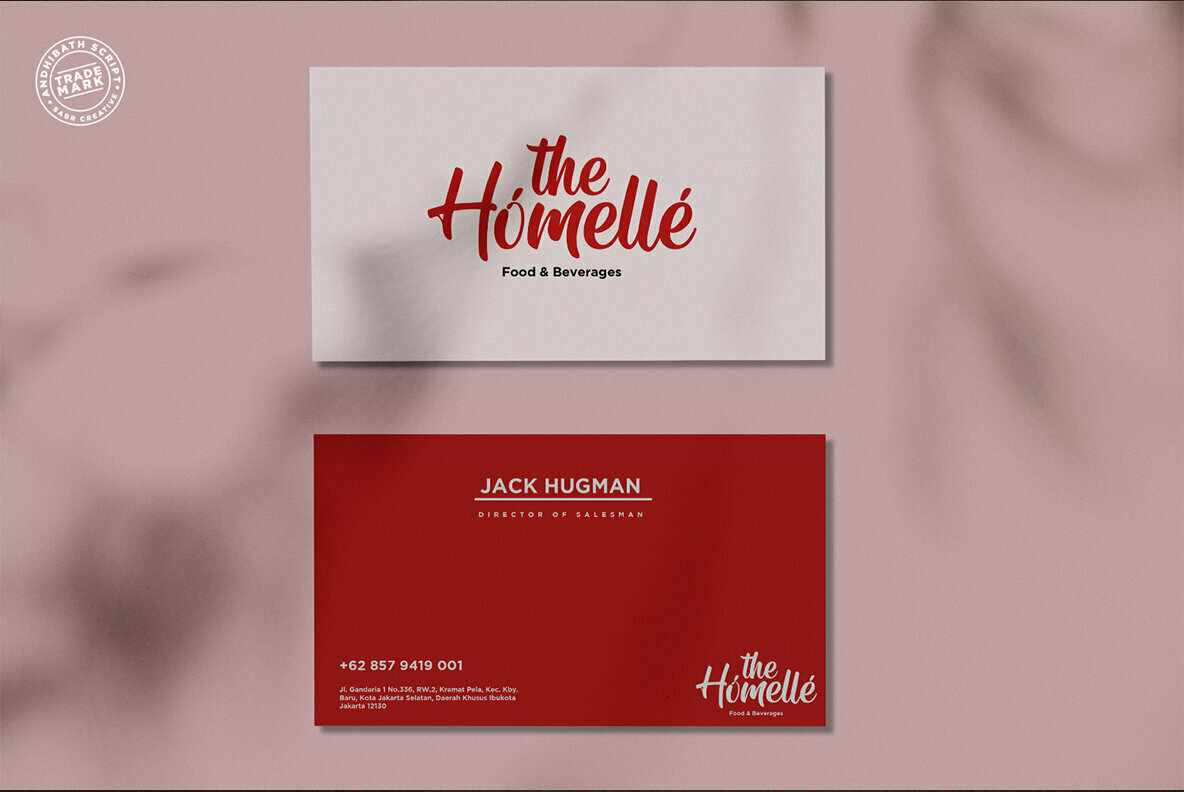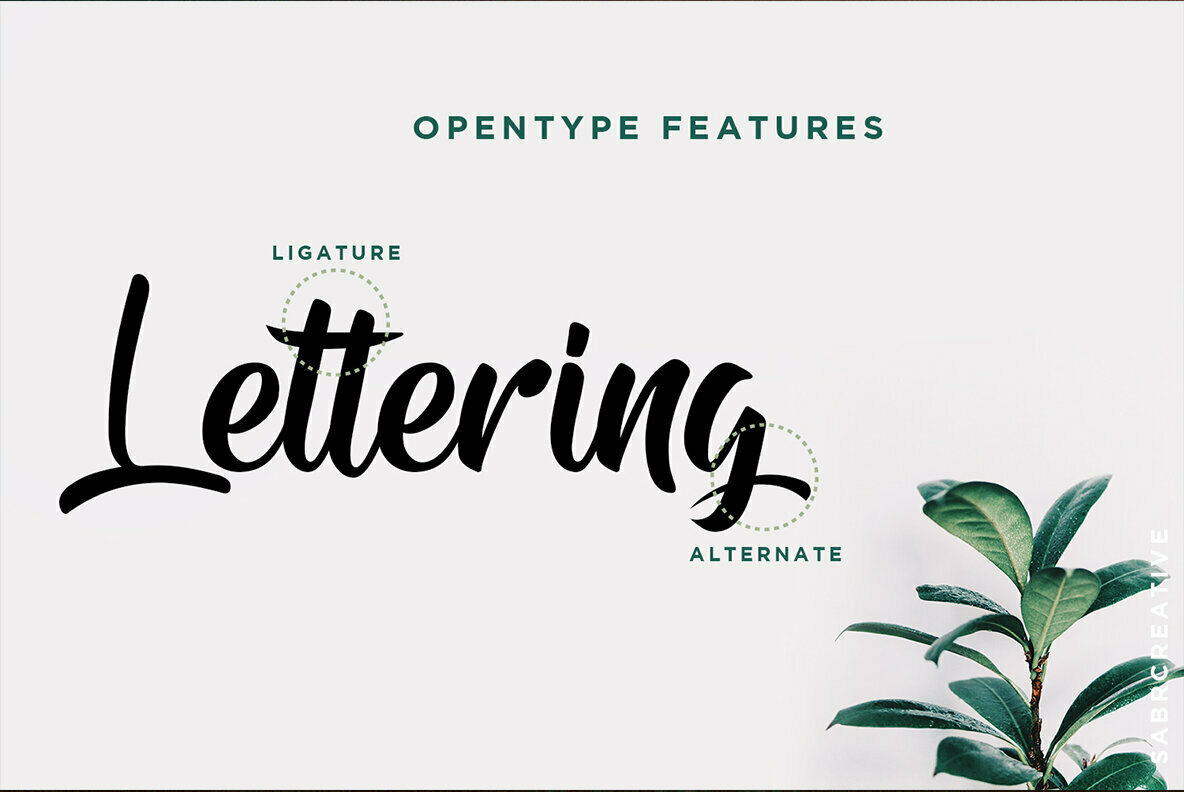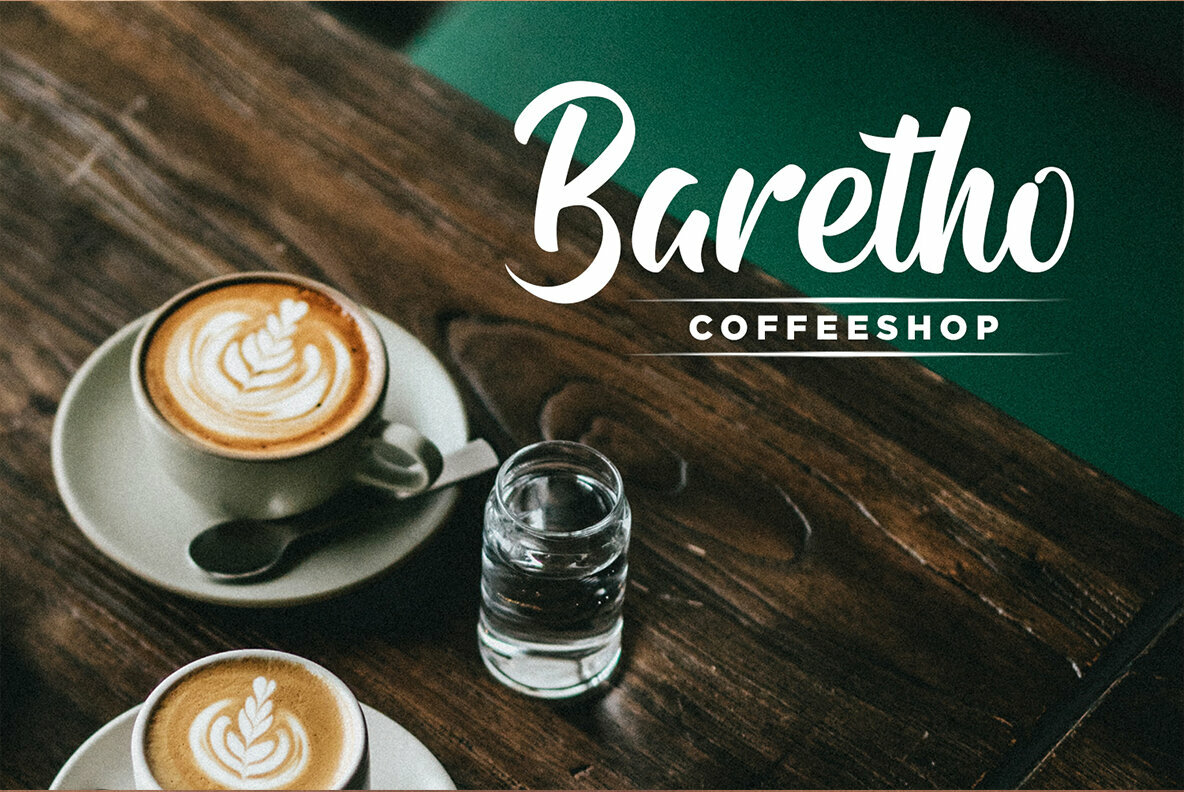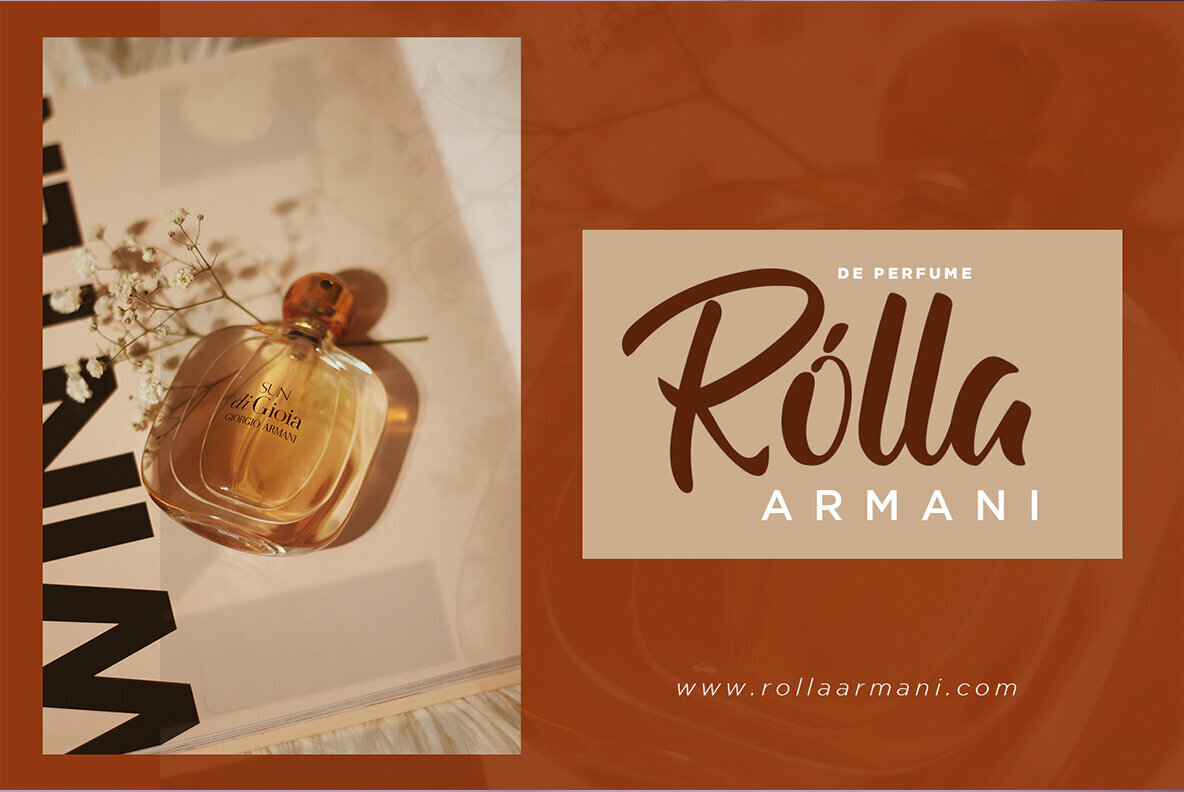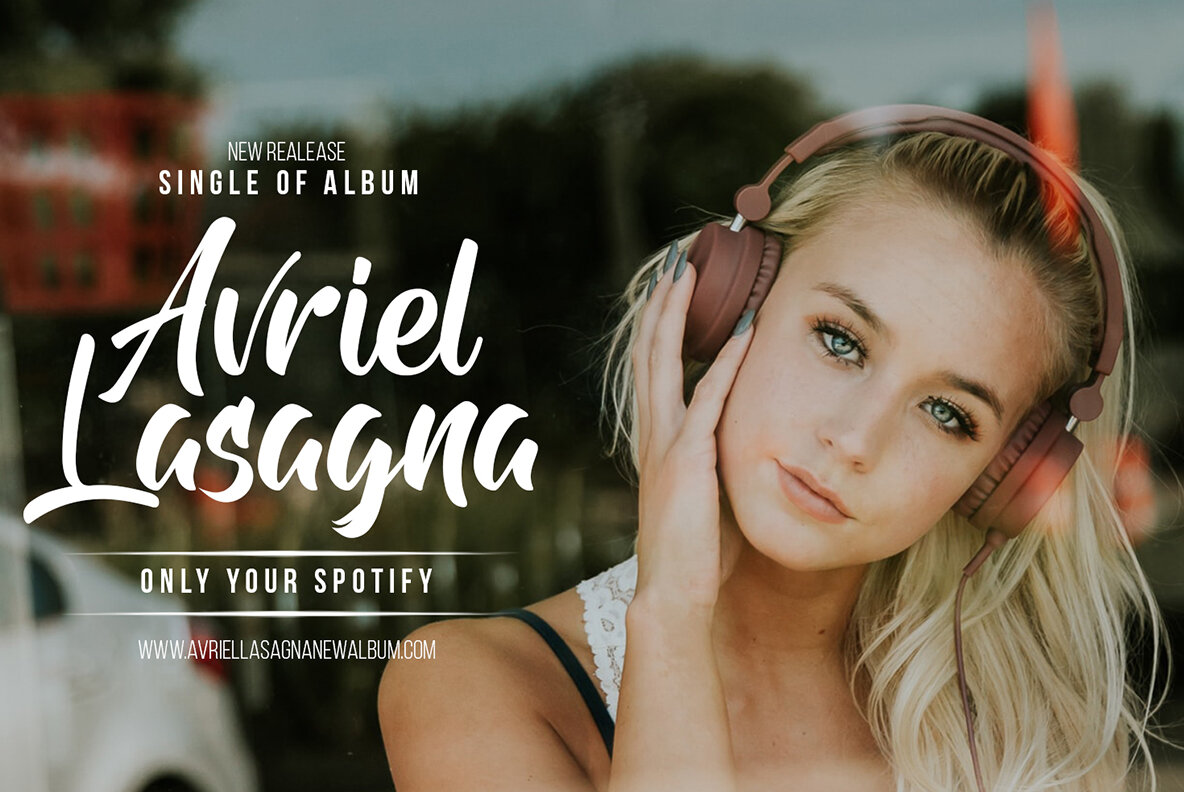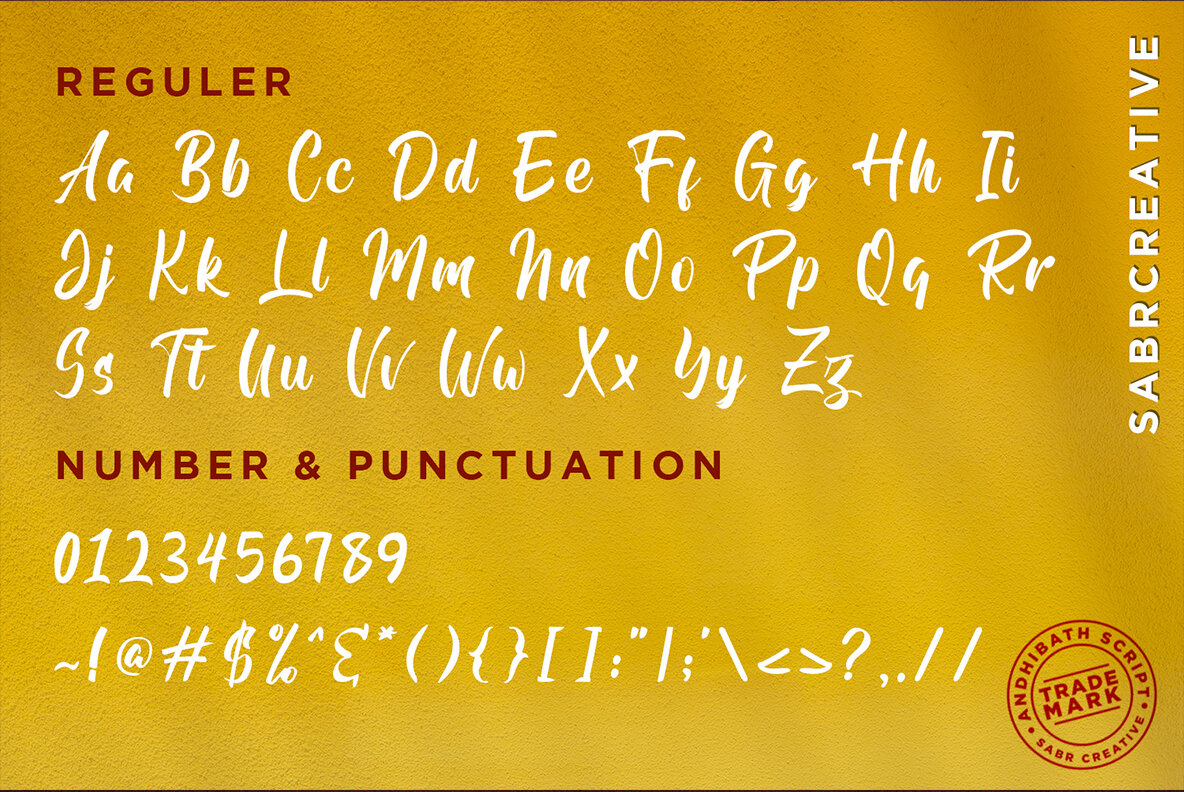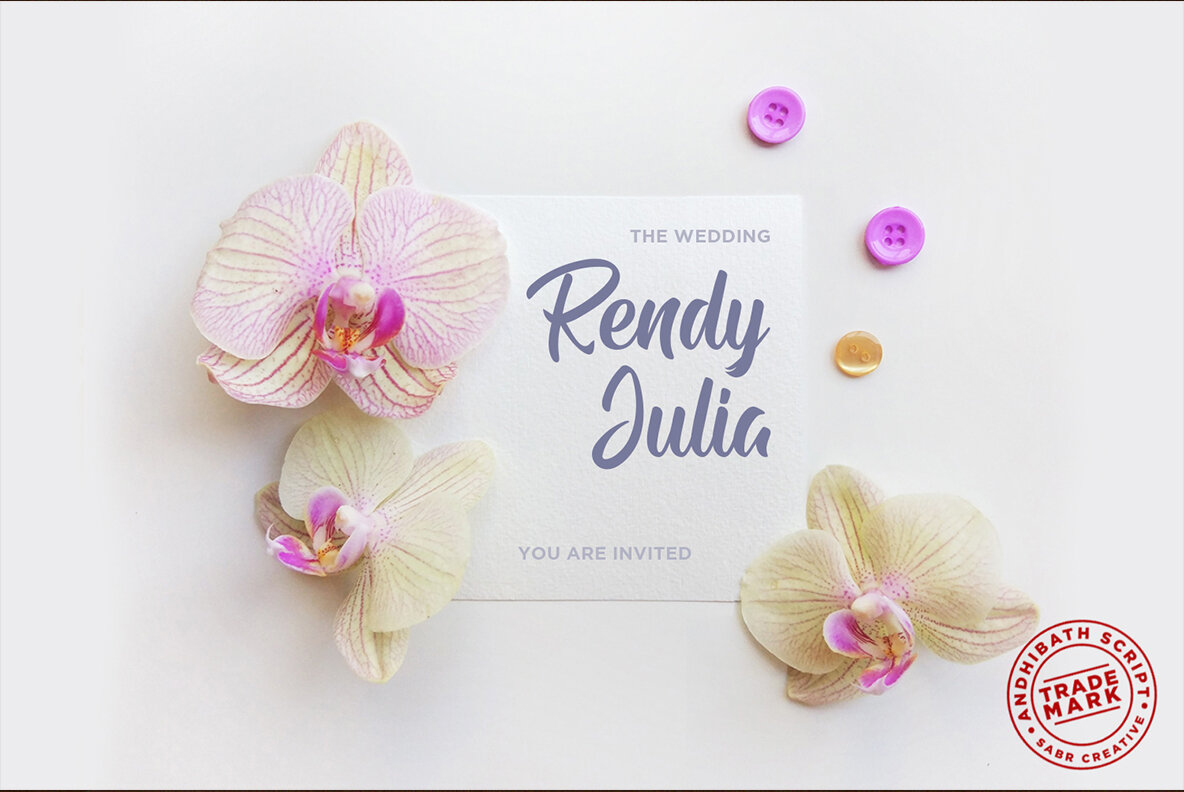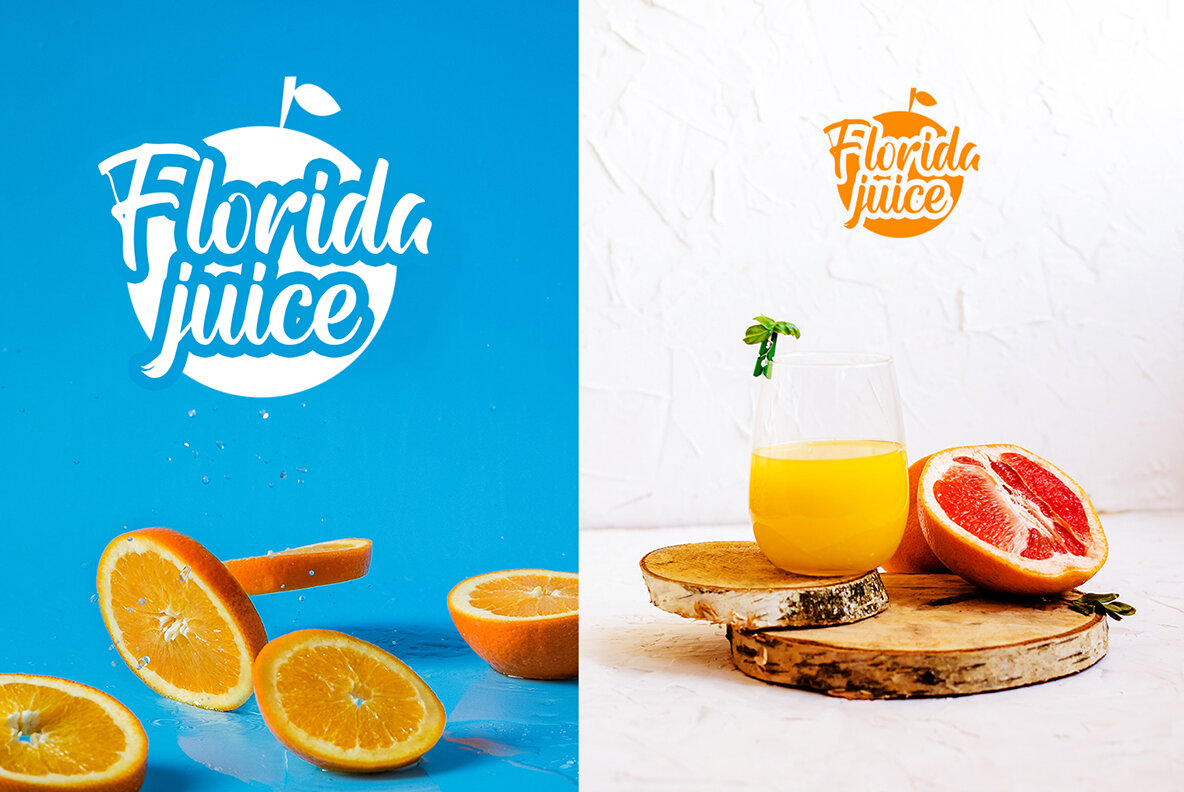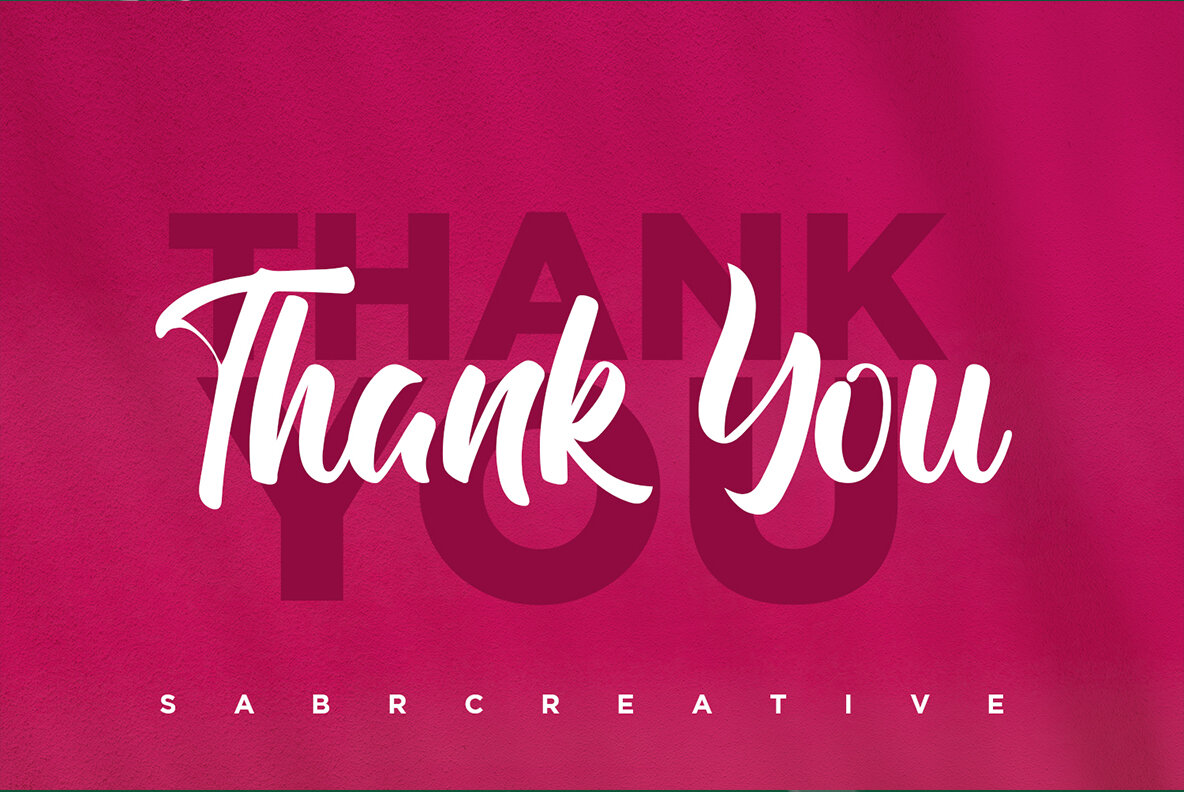
Andhibath Font
Andhibath
The Andhibath font by Sabrtype Studio embodies a harmonious blend of natural flow and strong character, crafted with meticulous calligraphic techniques. Designed to adapt to diverse project needs, this script font maintains a consistent appearance, elevating any creative endeavor with its distinctive style. This font is versatile and features crucial design elements, making it compatible with various international design styles. Its multilingual support ensures a seamless fit across different cultural aesthetics.Andhibath: A Script Font with Natural Elegance